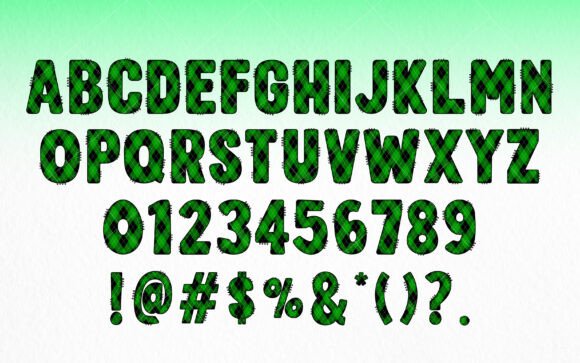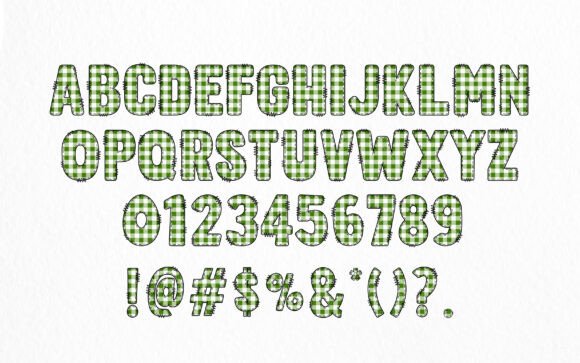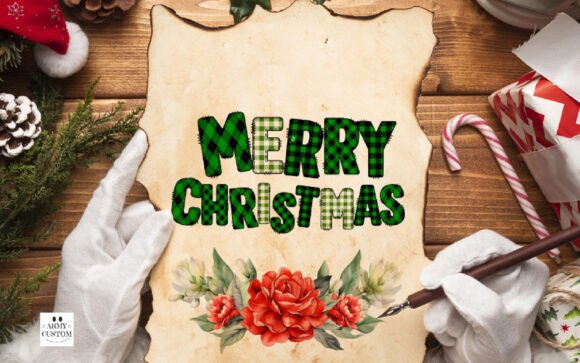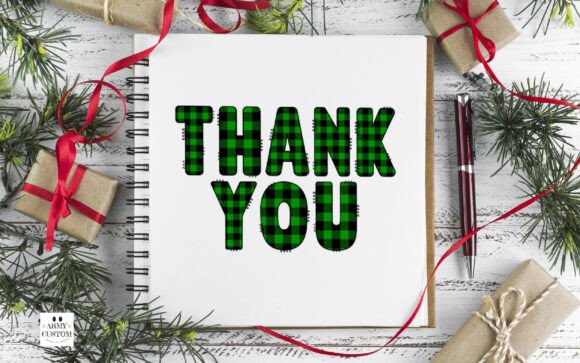
Buffalo Plaid Bundle Font
Introducing the Bundle Green Plaid Pattern Font, a typeface that exudes festive warmth. Its rich Green Buffalo plaid pattern seamlessly weaves traditional charm with an engaging aesthetic, precisely perfect for the season of merrymaking. This font, with its plaid seamless design, adds a quintessential holiday touch to every word, invoking the cozy comfort of a log cabin Christmas.